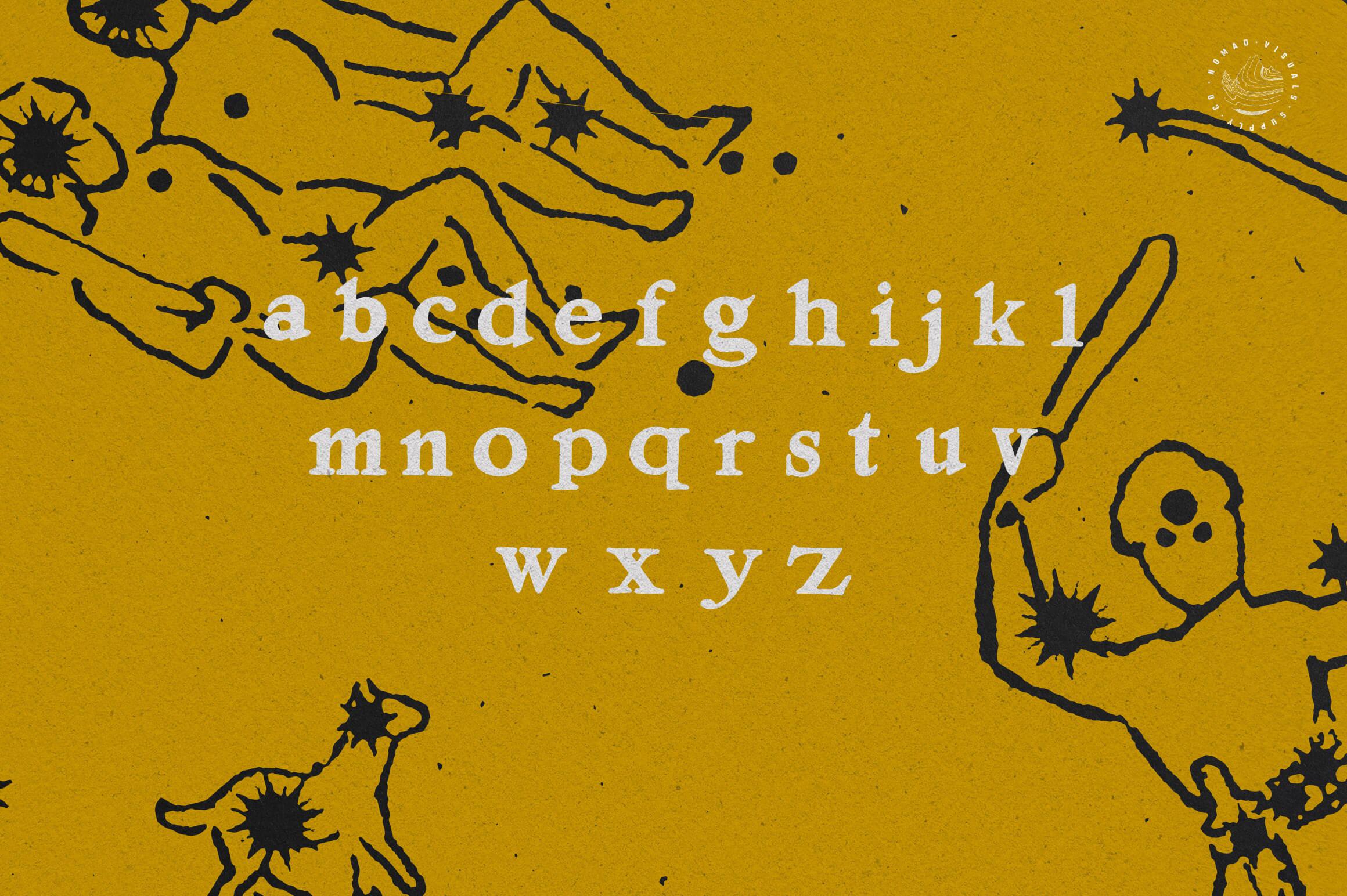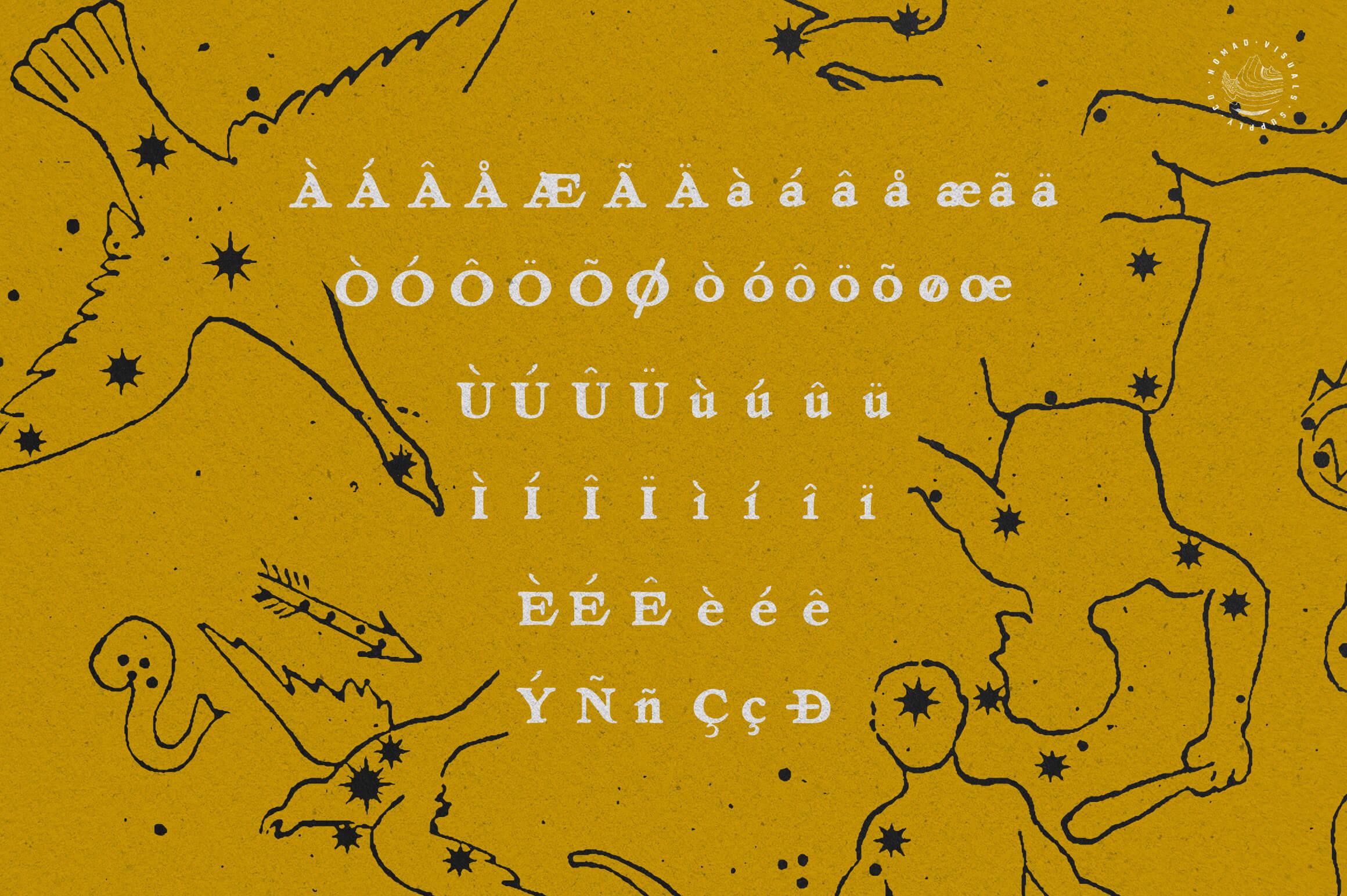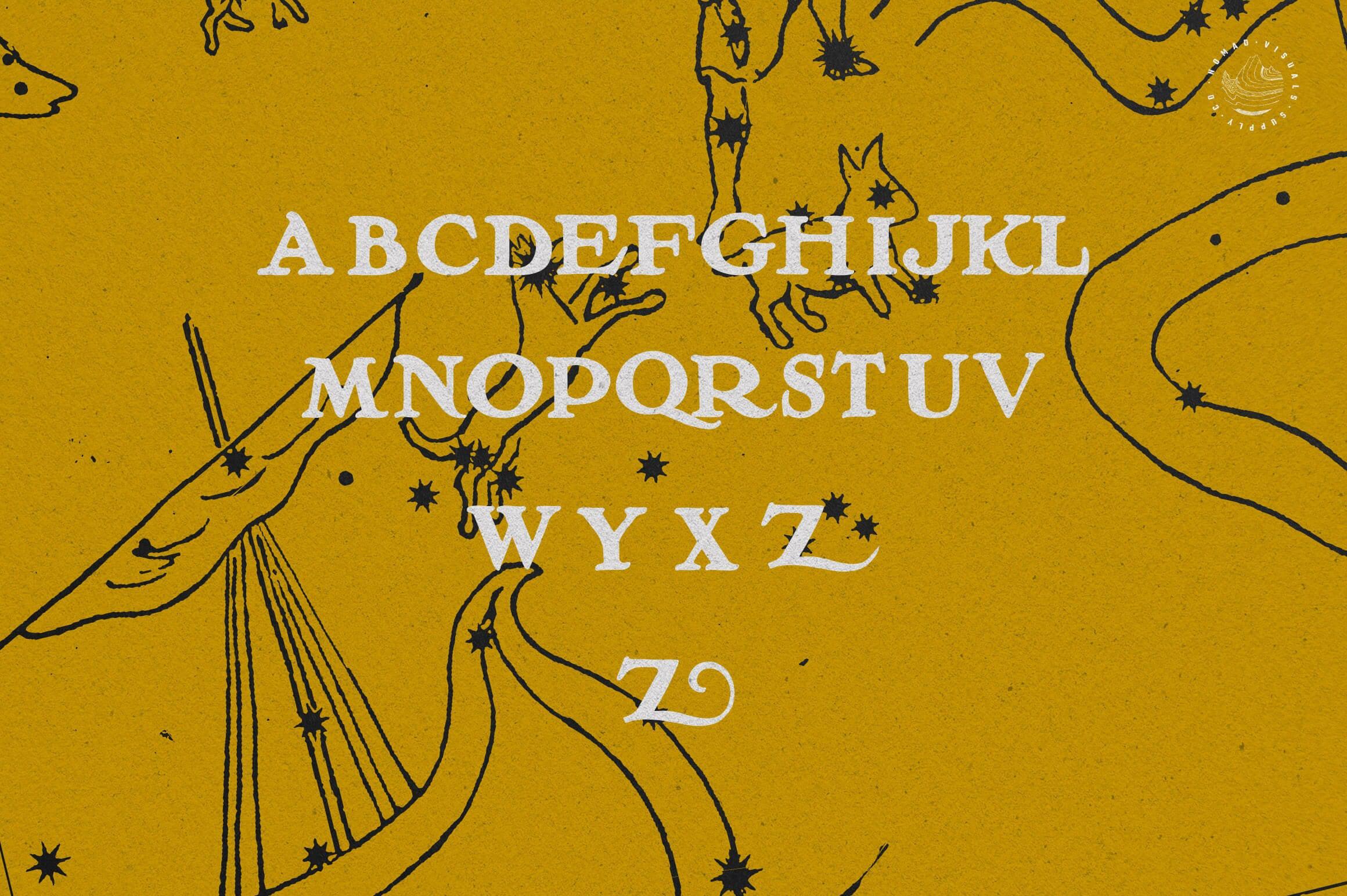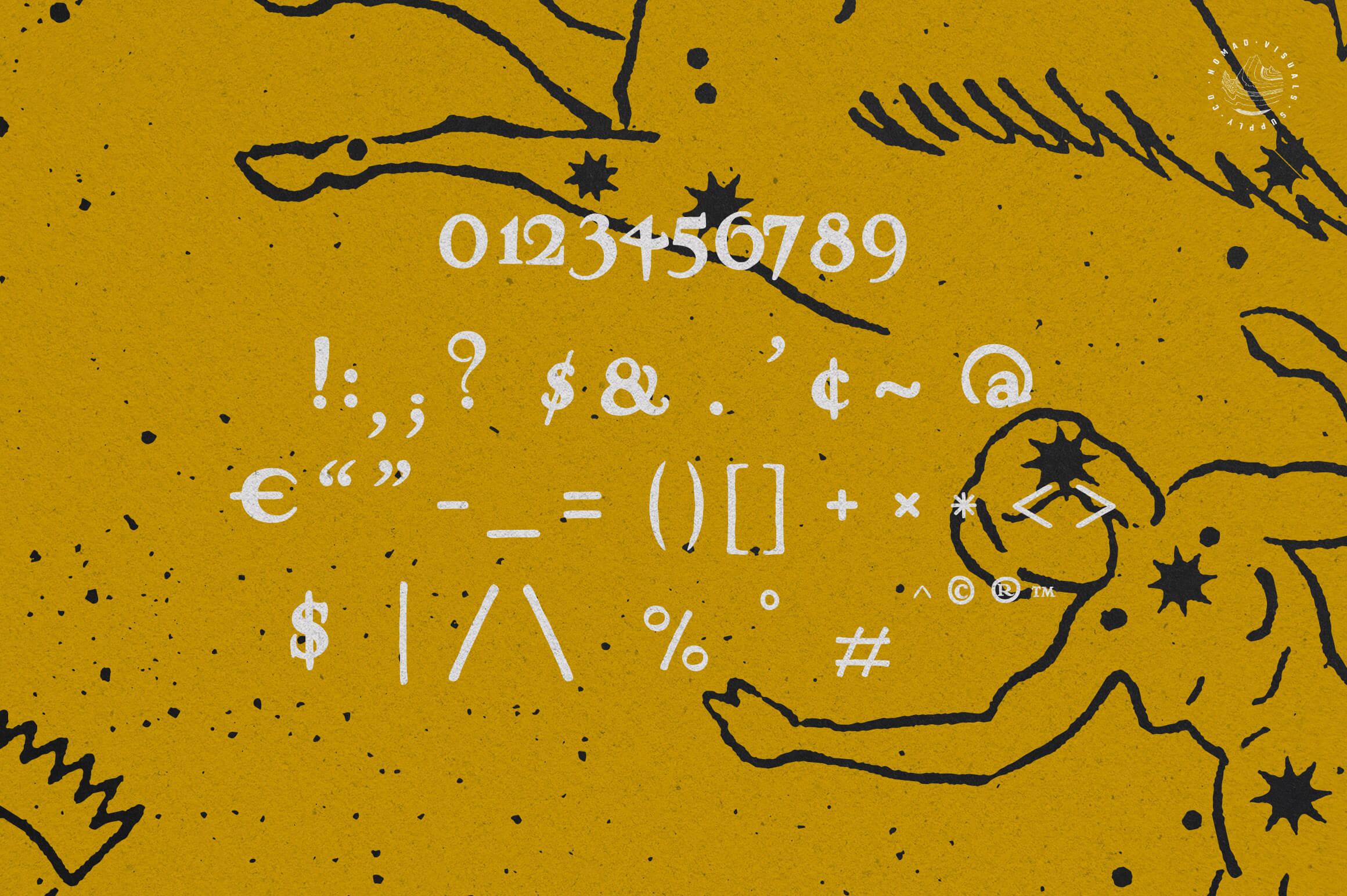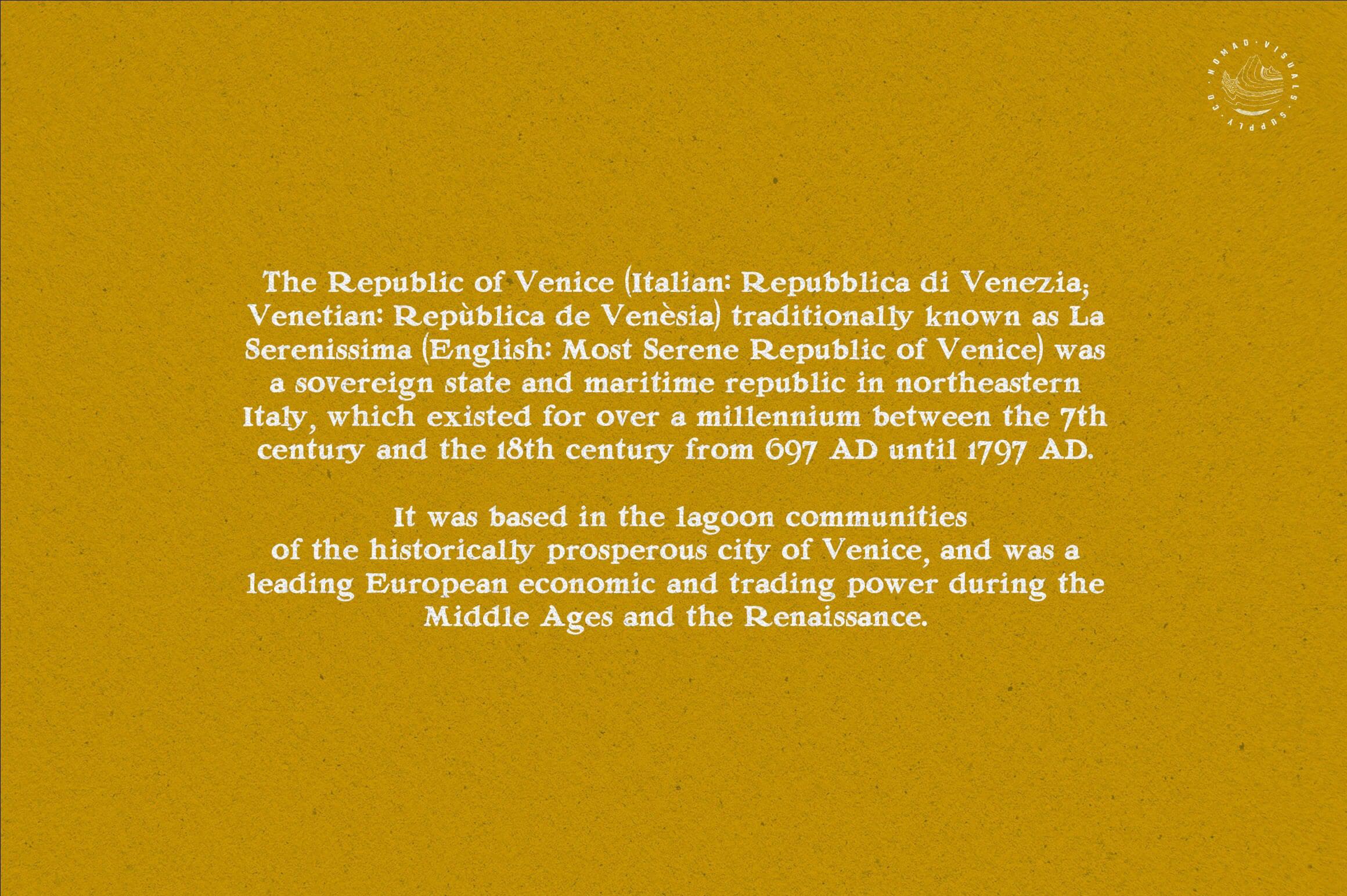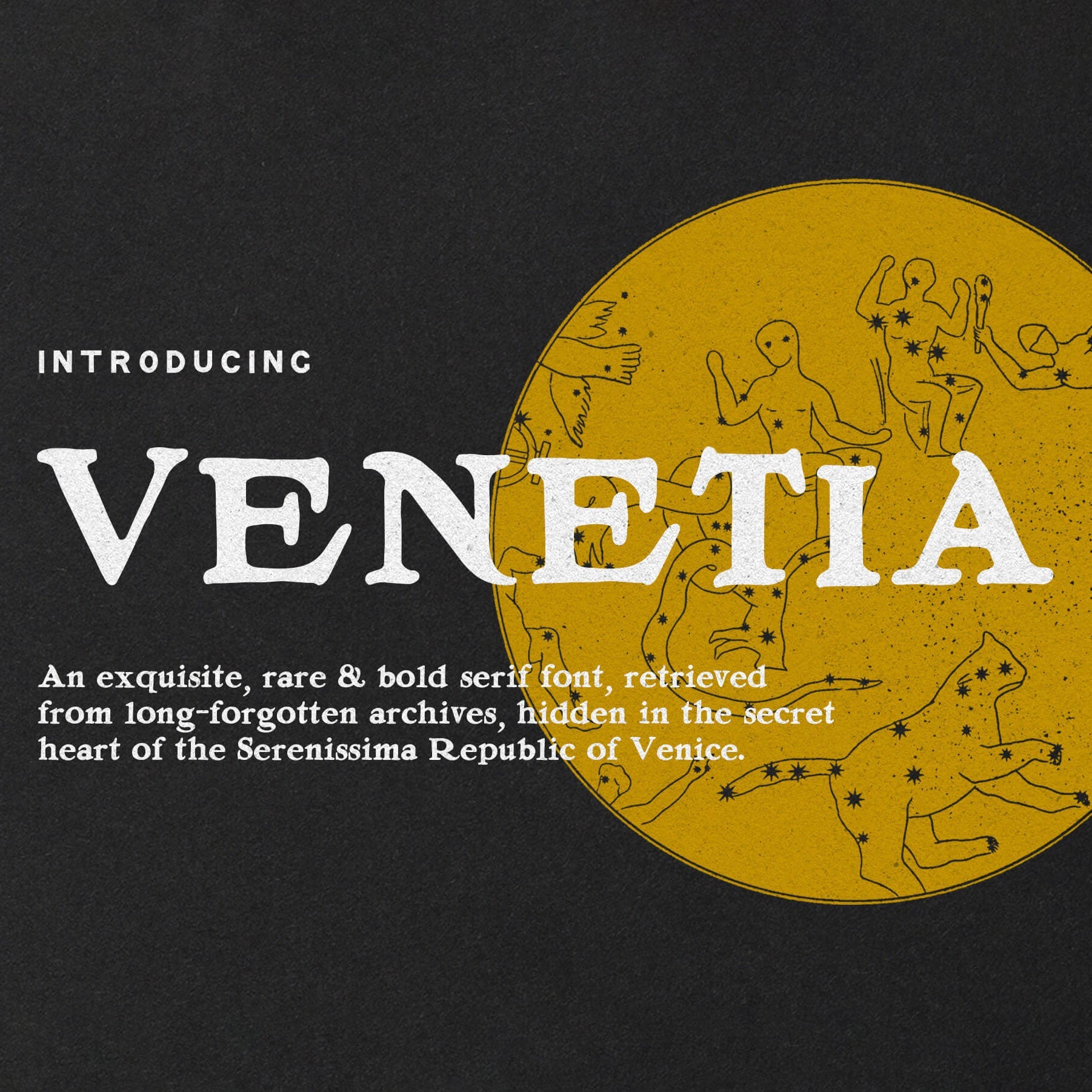
Venetia Display Serif Font
The Venetia Display Serif Font is a bold, distinctive, and rare font retrieved from archives of the Serenissima Republic of Venice. It includes numbers, punctuation, and special characters for international language support.
Ideal for vintage-inspired graphic design and sophisticated branding projects. Perfect for logo design, invitations, labels, and high-end marketing materials, ensuring a unique and striking visual impact that captures the essence of elegance and history.